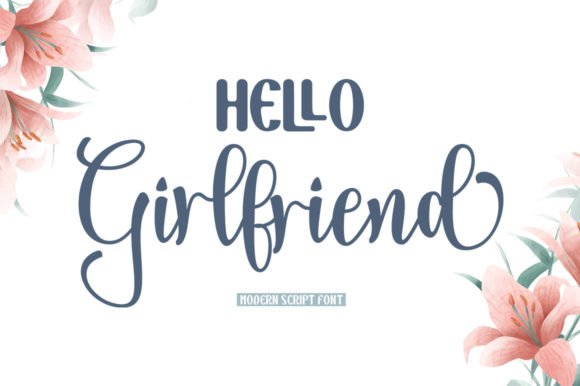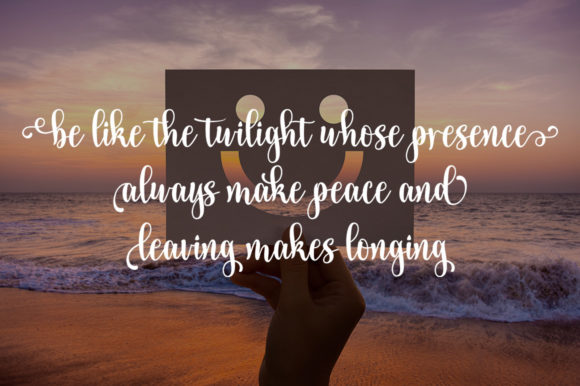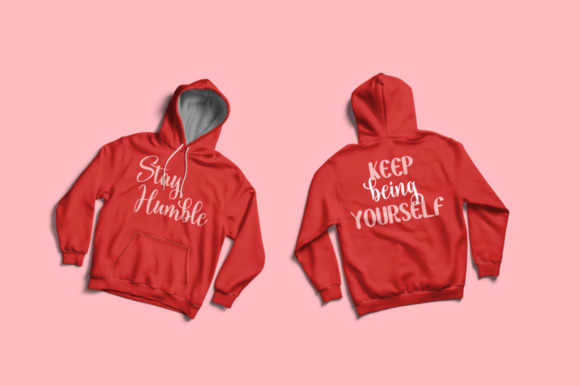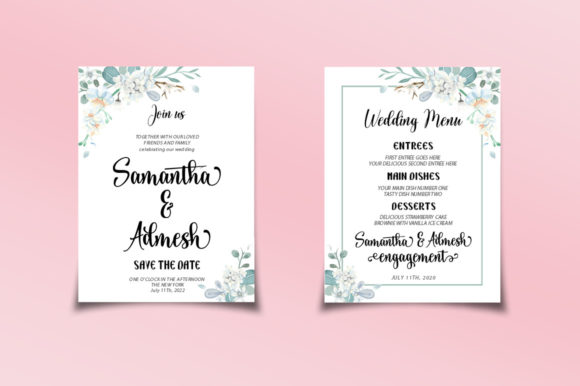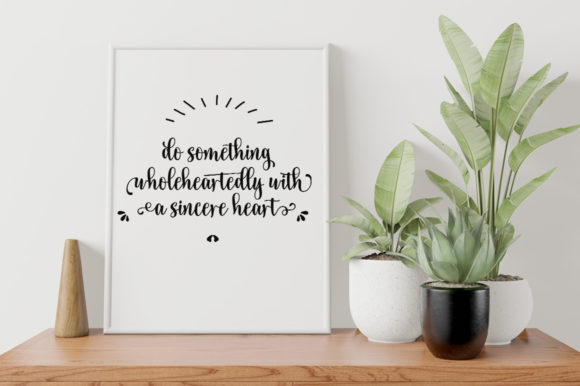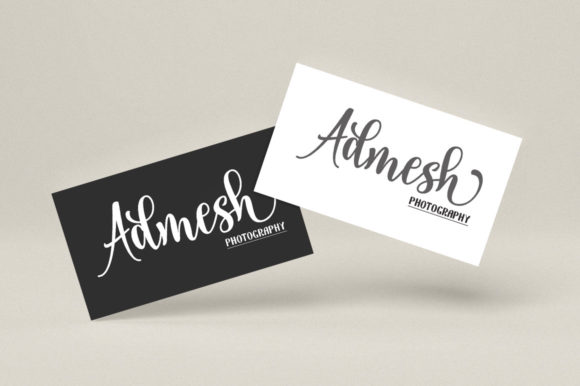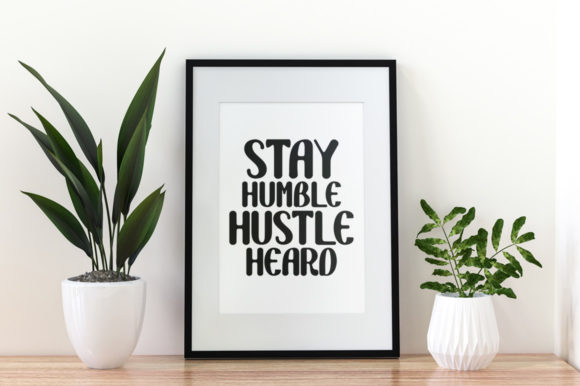
Unleashing Whimsy with the Hello Girlfriend Font
Have you ever stared at a blank canvas, waiting for inspiration to strike? I know I have – and more often than not, it’s the simple, elegant touches that spark the creative process. For designers and typographers, the perfect font can be just the catalyst needed to bring a project to life. That’s where the Hello Girlfriend Font comes in – a delicate and charming handwritten font that adds a touch of whimsy to any design.
With its well-balanced letters and PUA encoded glyphs, the Hello Girlfriend Font is a masterclass in elegance. Whether you’re working on a wedding invitation, a blog post, or a social media campaign, this font is sure to add a touch of sophistication and charm. As a designer, you’ll appreciate the versatility and ease of use that the Hello Girlfriend Font offers.
Hello Girlfriend Font Key Features
- Font Style: Casual, Cursive, Script
- Unique Characteristics: Hand-drawn design, flowing connections, and elegant flourishes make it perfect for creative projects and personal messages
Hello Girlfriend Font Review
When I first saw the Hello Girlfriend Font, I was intrigued by its playful and modern design. The font’s clean lines and rounded edges give it a friendly and approachable feel, making it perfect for any project that requires a touch of whimsy. ✨ I particularly love the font’s ability to add a sense of excitement and energy to any text.
However, after using the font extensively, I noticed a few limitations that might make it less suitable for certain projects. ⚠️ Firstly, the font can be a bit too playful for formal or professional contexts. Additionally, the font’s rounded edges can sometimes make it difficult to read at small font sizes.
- ✨ Friendly and approachable design
- ✨ Perfect for projects that require a touch of whimsy
- ⚠️ Not suitable for formal or professional contexts
- ⚠️ Can be difficult to read at small font sizes
Overall, I would say that the Hello Girlfriend Font is a great choice for projects that require a playful and modern design. While it may have some limitations, the font’s unique personality and charm make it a great addition to any design arsenal.
The Hello Girlfriend Font is ideal for creating playful and whimsical designs, such as:
- Social media graphics and posts
- Wedding invitations and decor
- Party and event branding
Remember to use the font in moderation, as it can be quite bold and eye-catching. Experiment with different font sizes and combinations to achieve the desired effect.